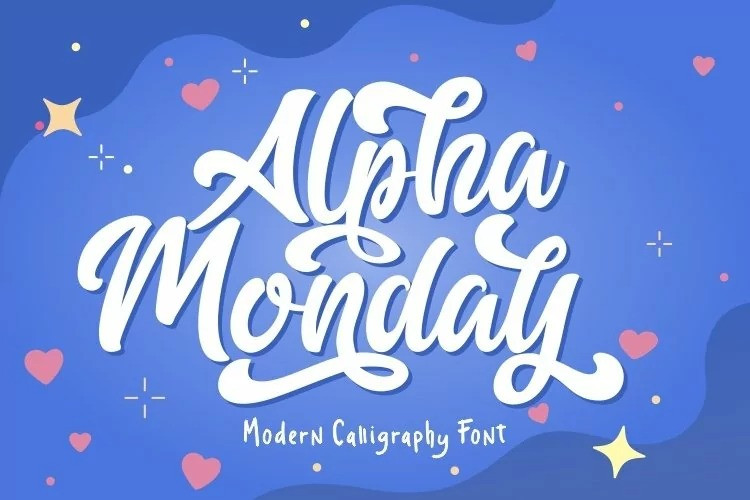
Alpha Monday Font
Alpha Monday Bold Script Font
This is an elegant script font created by Eknoji with a contemporary atmosphere and impeccable form, inspired by timeless classic calligraphy. Add it to your most creative ideas and notice how it makes them come alive! This font is PUA encoded which means you can access all of the glyphs and swashes with ease!